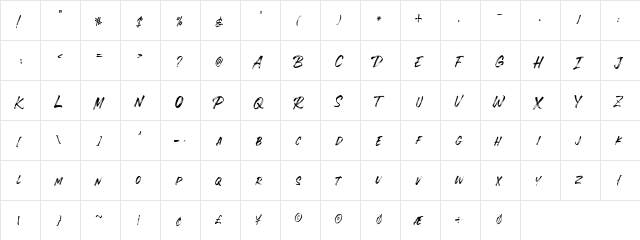
SEBLAQUE DEMO Regular
| Designer | Andrie Nugrie |
Design Context for SEBLAQUE DEMO Typeface
SEBLAQUE DEMO is a composed and adaptable typeface that performs quietly and consistently across a wide range of design contexts.